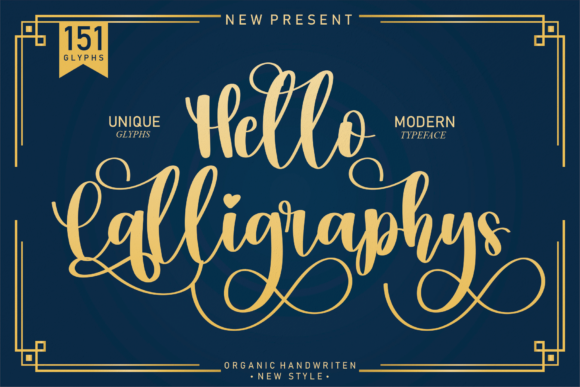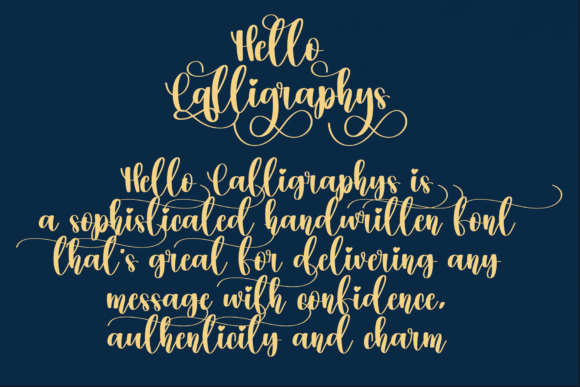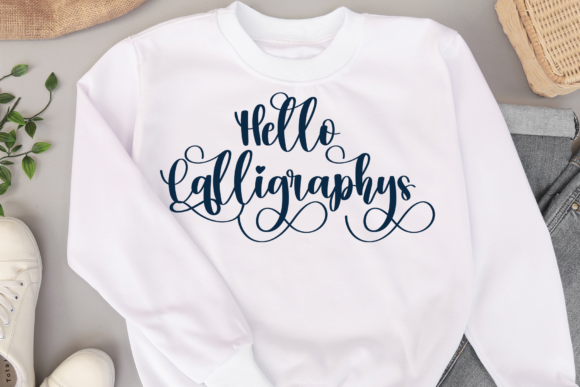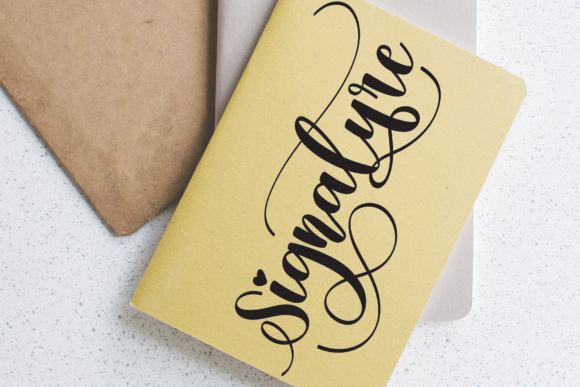
About Hello Calligraphys Font
Hello Calligraphys is a lovely and delicate script font that exudes elegance and class. It looks stunning on wedding invitations, thank you cards, quotes, greeting cards, logos, business cards and every other design which needs a customized touch.